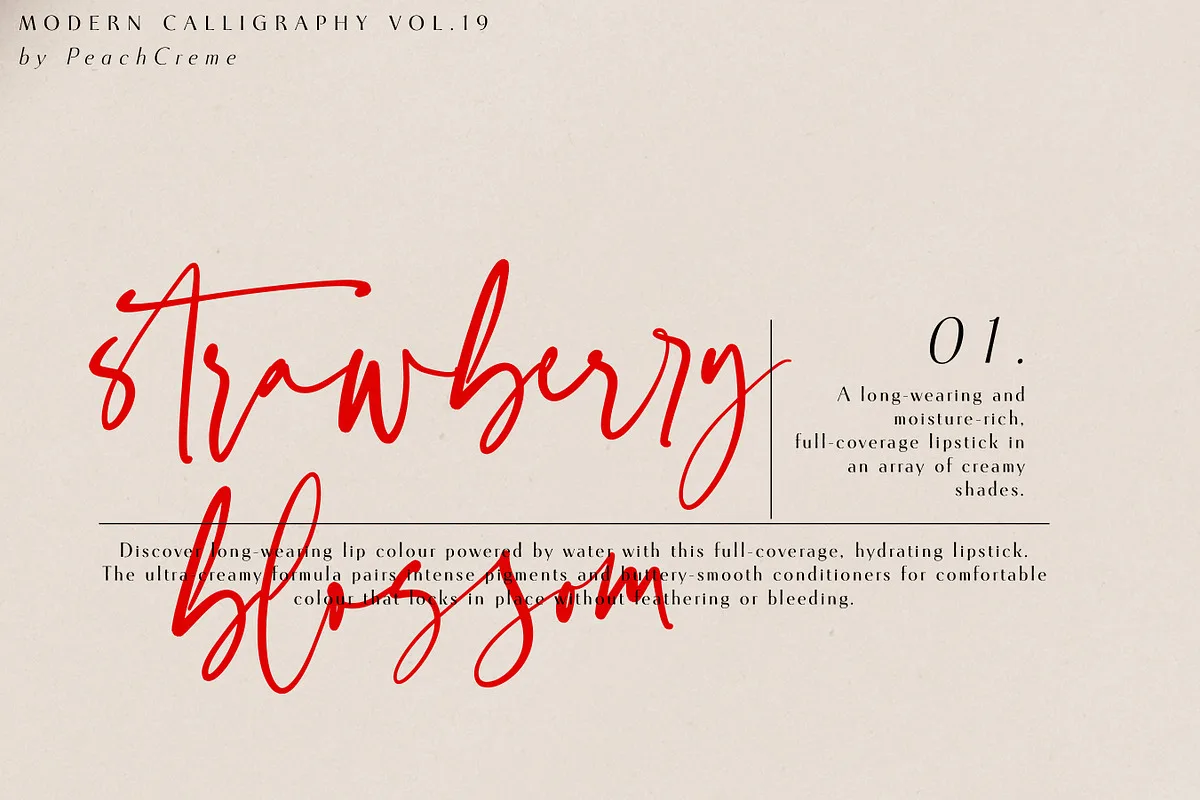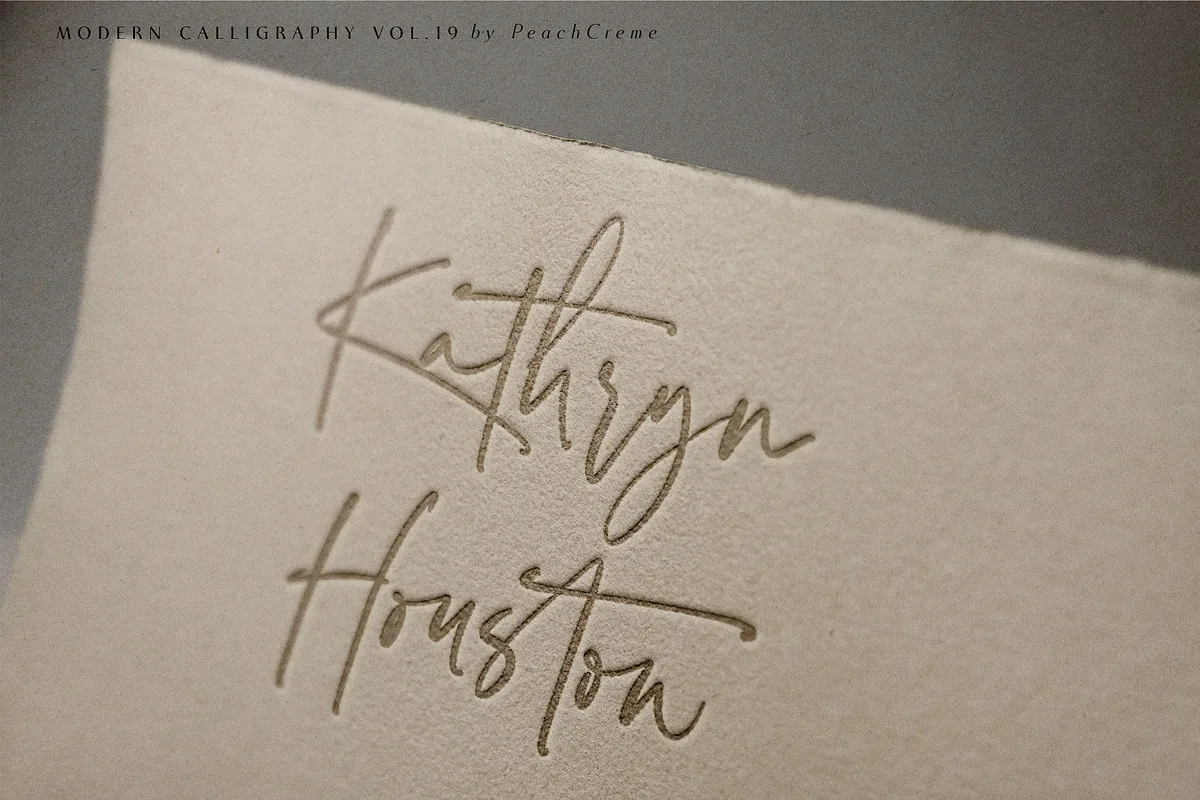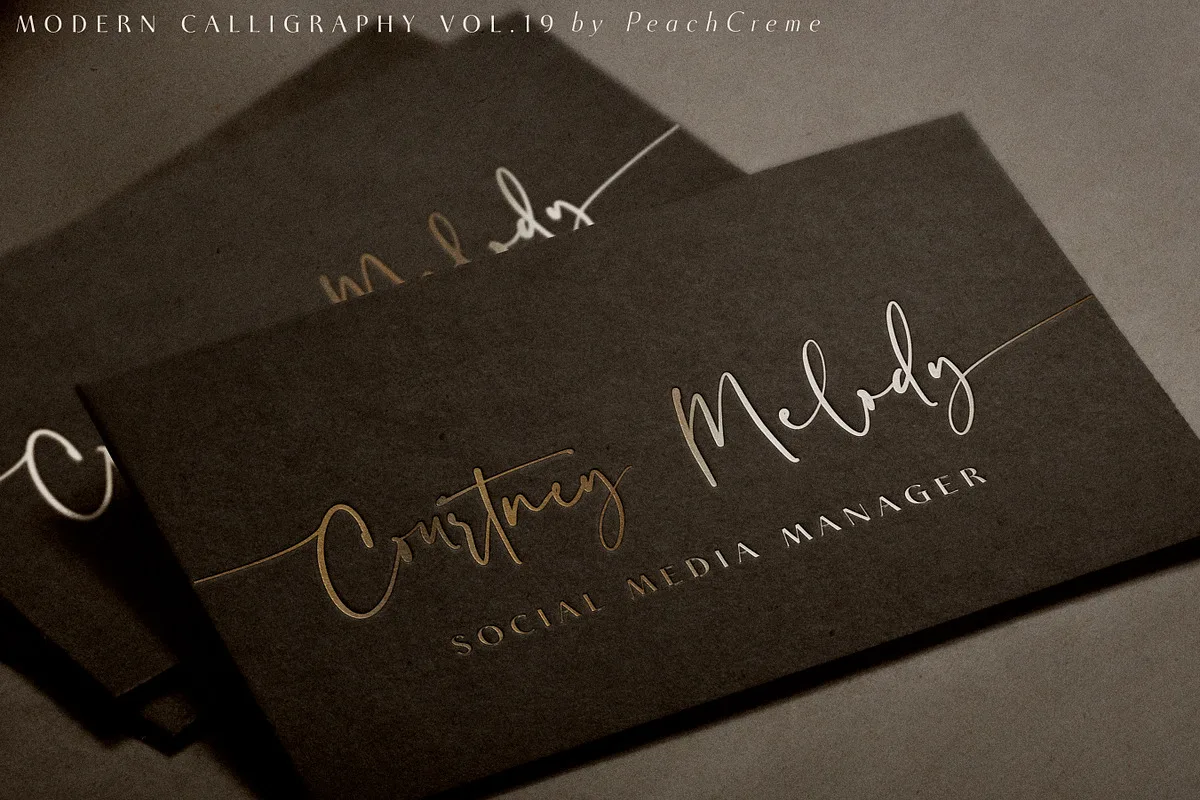
Faustine is a modern script font. It is suitable for you who needs a typeface for headline, logotype, quotes, apparel, invitation, branding, packaging, advertising, etc.
The font includes uppercase and lowercase letters, numerals, a large range of punctuation and ligatures. All lowercase letters include beginning and ending swashes. All uppercase letters include beginning swashes, that makes the font look fabulous!